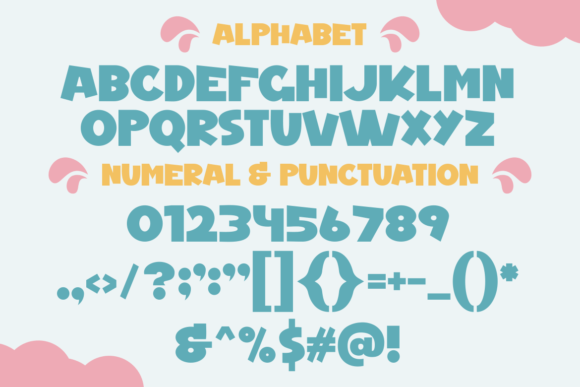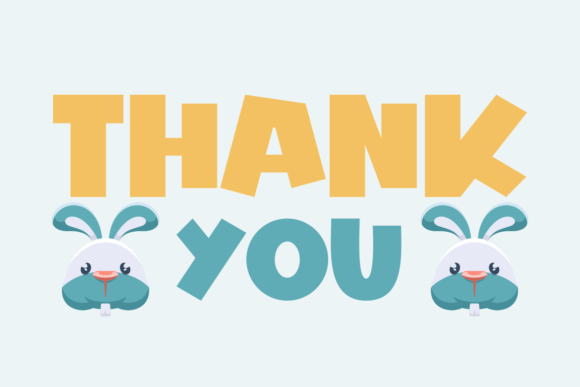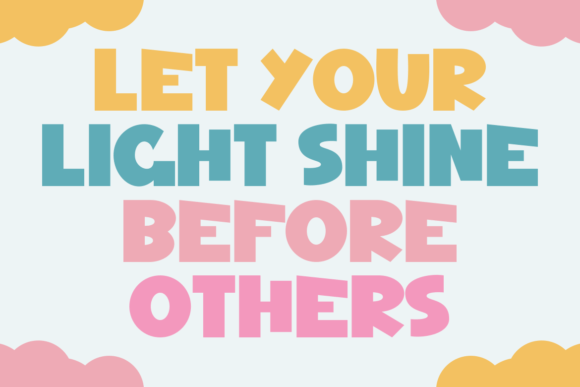
Bless Easter Font: Add a Touch of Whimsy to Your Holiday Designs
Are you looking for a font that embodies the spirit of Easter? Look no further than Bless Easter, a delightful and quirky display font that radiates joy and festivity. With its playful and unique design, Bless Easter is perfect for greeting cards, party invitations, and holiday-themed designs. In this article, we’ll dive into the features and benefits of Bless Easter, and explore how you can use it to add a touch of whimsy to your creations.
What is Bless Easter Font?
Bless Easter is a display font designed specifically for Easter-themed projects. Its playful and quirky design makes it perfect for adding a touch of festivity to your creations. The font features bold lines, rounded edges, and a cheerful vibe that’s sure to bring a smile to anyone’s face. Whether you’re designing greeting cards, party invitations, or holiday-themed decorations, Bless Easter is the perfect choice.
Key Features of Bless Easter Font
- Playful and Unique Design: Bless Easter features a one-of-a-kind design that’s sure to stand out from the crowd. Its playful and quirky style makes it perfect for Easter-themed projects.
- Bold Lines and Rounded Edges: The font features bold lines and rounded edges, giving it a cheerful and friendly vibe.
- Perfect for Greeting Cards and Invitations: Bless Easter is ideal for designing greeting cards, party invitations, and other holiday-themed materials.
- Easy to Read and Use: Despite its playful design, Bless Easter is easy to read and use, making it perfect for a wide range of projects.
Benefits of Using Bless Easter Font
So why choose Bless Easter for your Easter-themed projects? Here are just a few benefits of using this delightful font:
- Adds a Touch of Whimsy: Bless Easter adds a touch of whimsy and playfulness to your designs, making them perfect for Easter-themed projects.
- Creates a Cheerful Vibe: The font’s cheerful design creates a happy and celebratory vibe that’s perfect for holiday-themed designs.
- Perfect for a Wide Range of Projects: Bless Easter is versatile enough to use for a wide range of projects, from greeting cards to party invitations and holiday decorations.
- Easily Customizable: The font is easily customizable, allowing you to adjust the size, color, and style to fit your project’s needs.
How to Use Bless Easter Font
Using Bless Easter is easy! Here are a few tips for incorporating the font into your designs:
- Pair with Other Easter-Themed Elements: Pair Bless Easter with other Easter-themed elements, such as images of eggs, bunnies, or spring flowers, to create a cohesive design.
- Experiment with Colors: Experiment with different colors to find the perfect combination for your design. Pastel colors, bright hues, and metallic colors all work well with Bless Easter.
- Use for Headings and Titles: Use Bless Easter for headings and titles to add a touch of whimsy and playfulness to your design.
- Try it for DIY Projects: Bless Easter is perfect for DIY projects, such as crafting Easter baskets, making holiday decorations, or creating handmade cards.
Bless Easter is a delightful and quirky display font that’s perfect for adding a touch of whimsy to your Easter-themed designs. With its playful and unique design, bold lines, and rounded edges, it’s sure to bring a smile to anyone’s face. Whether you’re a designer or crafter, Bless Easter is a great choice for greeting cards, party invitations, holiday decorations, and DIY projects. So why not give it a try and add some Easter cheer to your creations?